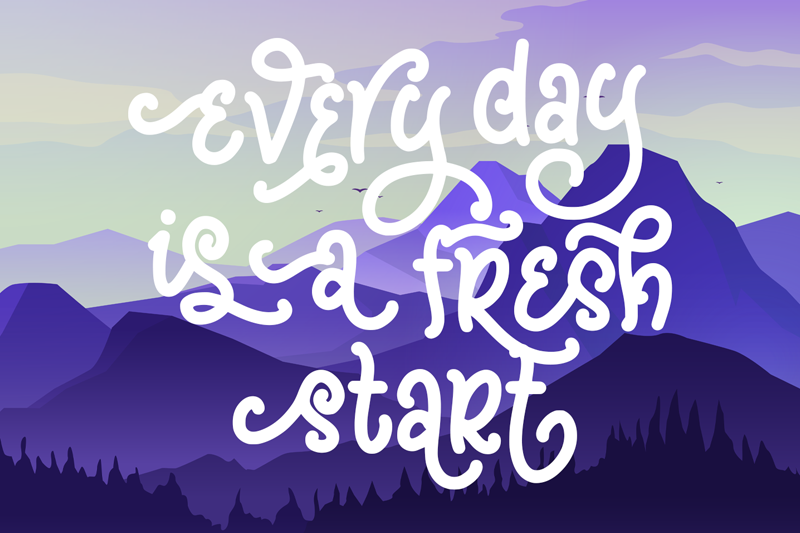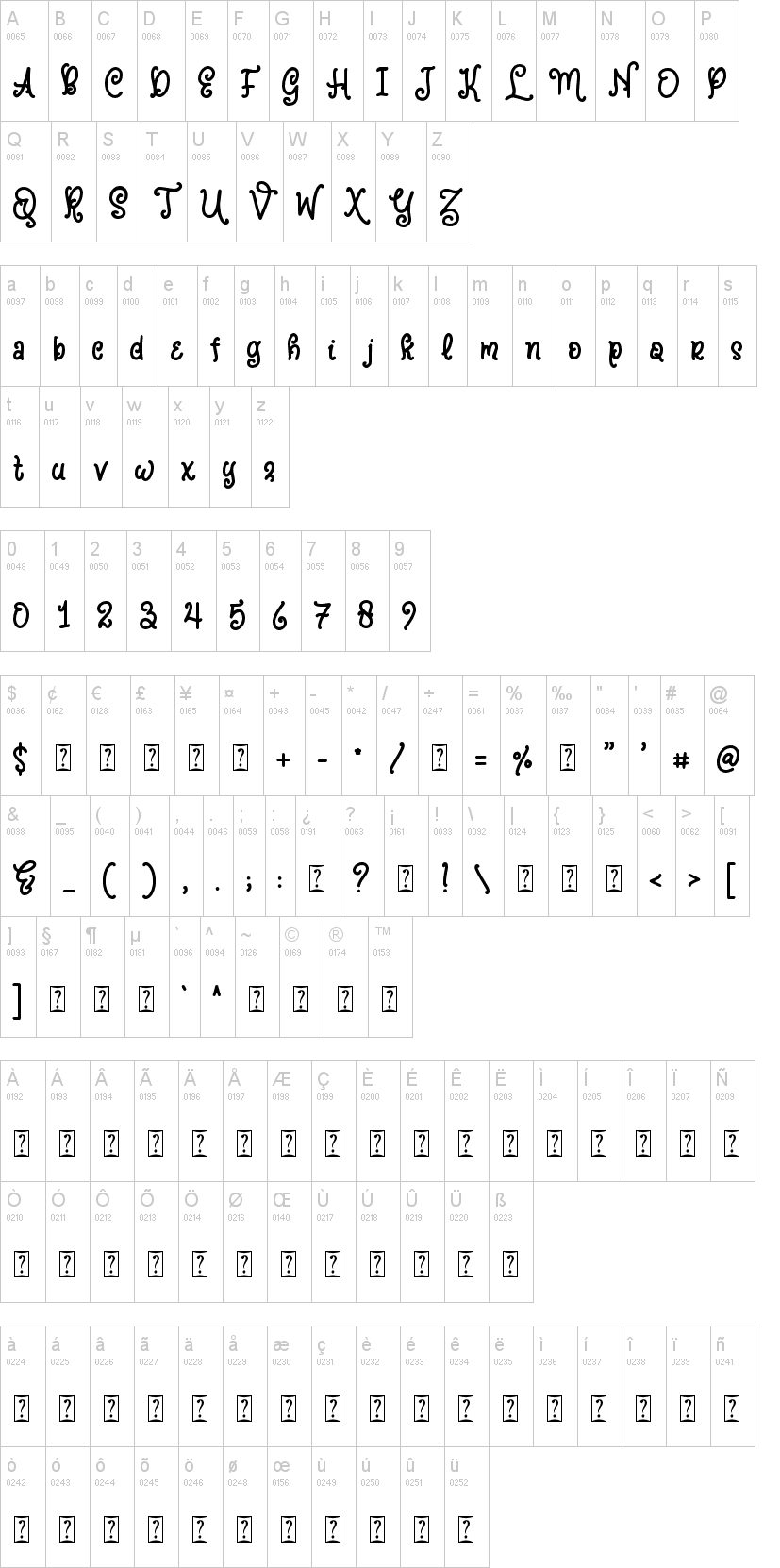
SWEET GARLIC
- swirly monoline font-
It comes with a lot of features :
- Every lowercase character have about 6 to 10 alternate
- Every uppercase character have 3 alternate
- 10 variations of an ampersand
- Swirly decorative typeface
- Multilingual Support